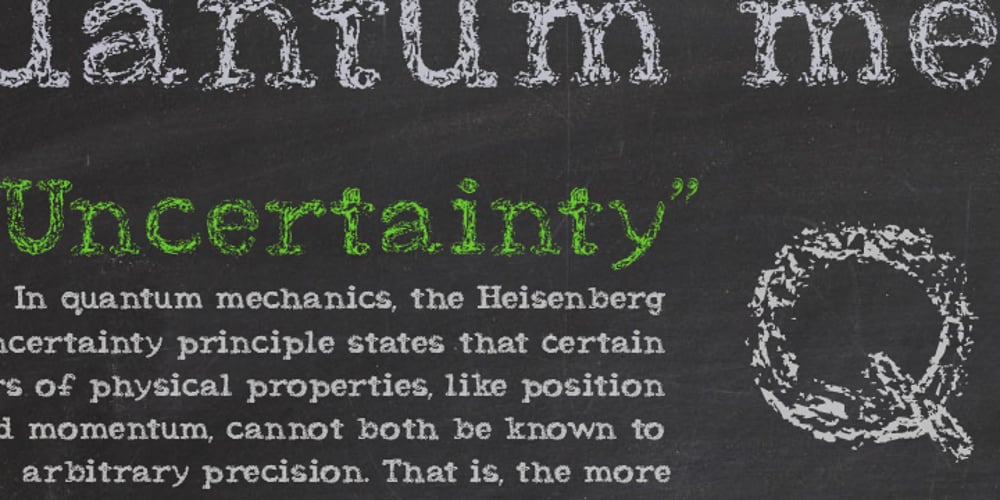
Uncertainty
Uncertainty font
Uncertainty Font Family was designed by Luke William Turvey and published by Okaycat. Uncertainty contains 1 styles and family package options. Uncertainty 2010 Edition is an intensely textured typeface carefully rendered by hand. This font is faded with a chalk-like texture. Please be aware that working with this highly detailed font may slow some graphics software as it requires more memory. Uncertainty is extended, containing West European diacritics and ligatures, making it suitable for multilingual environments and publications.